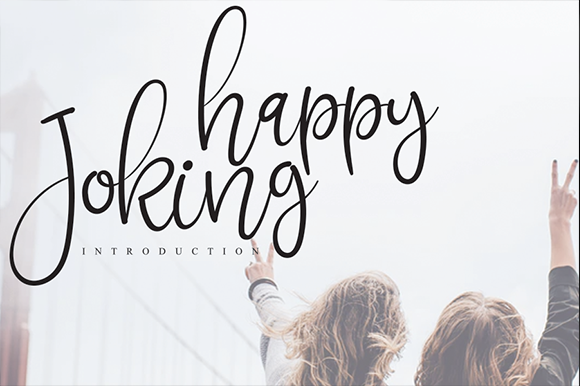
Unleash the charm and elegance of your YouTube intros with Joking Happy, the captivating script font that's sure to grab attention and leave a lasting impression. This stunning handwritten masterpiece is an ode to classic calligraphy, featuring a mesmerizing combination of a varying baseline, smooth lines, gorgeous glyphs, and stunning alternates. Each letter dances across the screen with grace and fluidity, evoking a sense of timeless sophistication.
Step into a world of creativity and let Joking Happy transform your intros into works of art. Its playful personality is perfect for adding a touch of whimsy to your videos, while its carefully crafted details ensure a polished and professional look. Whether you're a seasoned YouTuber, a budding vlogger, or simply someone who wants to add a touch of elegance to their online presence, Joking Happy is the perfect font for you.
With Joking Happy, you'll have the power to captivate your audience from the very beginning. Its charming style is guaranteed to make your videos stand out from the crowd, leaving viewers eager to see what's next. So why settle for ordinary when you can have extraordinary? Embrace the beauty of Joking Happy and watch as your YouTube channel takes flight.